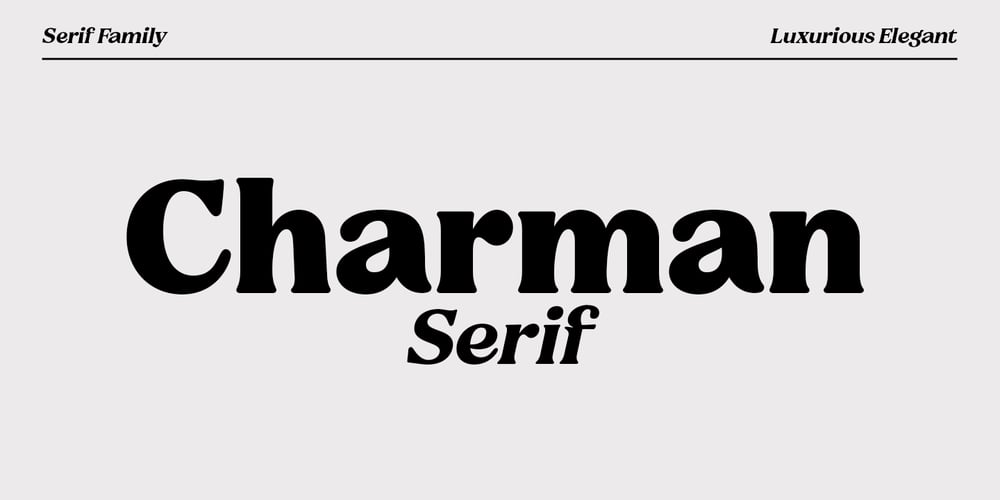
Charman Serif
Charman Serif font
Charman Serif Font Family was designed by Nadia Auliana and published by Propertype. Charman Serif contains 19 styles and family package options. The Charman Serif Font Family Pack is an Elegant serif font that comes in 20 different weights.Designed to reflect nature, creating a sense of softness and natural expression.The concept is pushed in a usability-focused direction, to serve as both a bold tool and a classy communicator.Charman Serif is encoded with Unicode PUA, which allows full access to all additional characters without having to design any special software. Mac users can use Font Book, and Windows users can use Character Map to view and copy any additional characters to paste into your favorite text editor/app.The Charman Serif character set combines many of the features of open type – additional symbols,both standard and optional, as well as punctuation in case and lower case – resulting in a stable workhorse set ready to handle projects of any size.I hope you enjoy using the Charman Serif font and that it will be a perfect addition to your font collection!